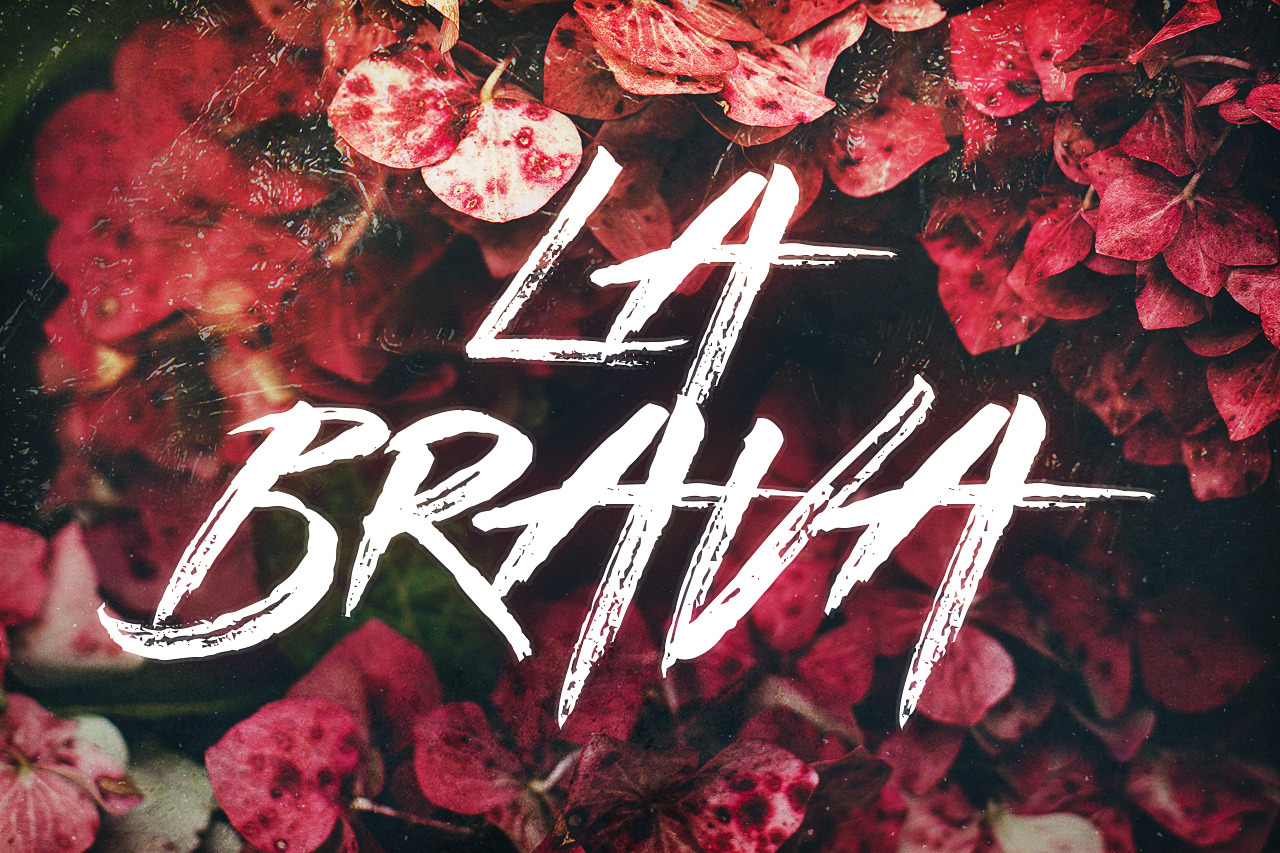
Introducing La Brava - The Handdrawn Display Typeface
La Brava is a handdrawn typeface with oodles of characters and charisma, the handsketched nature of this Font lends itself to display pieces and headline typographic work as seen in the preview images.